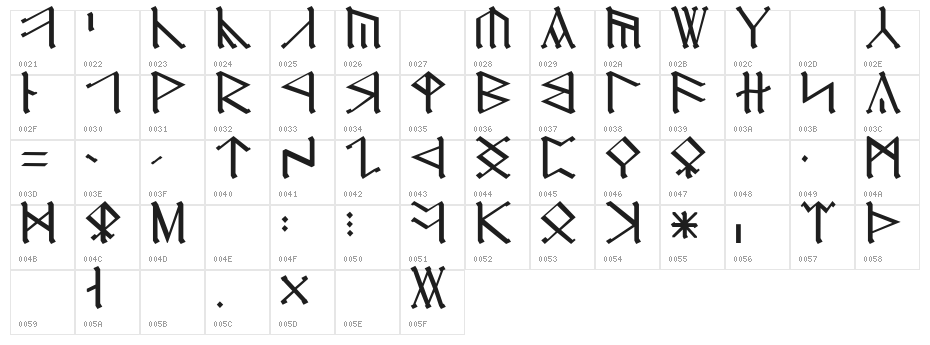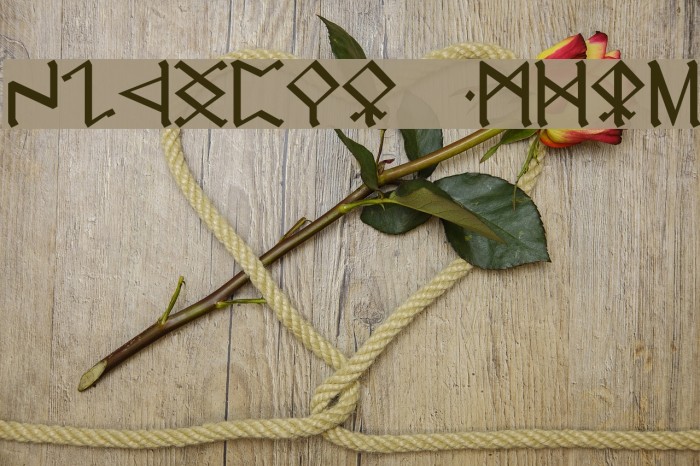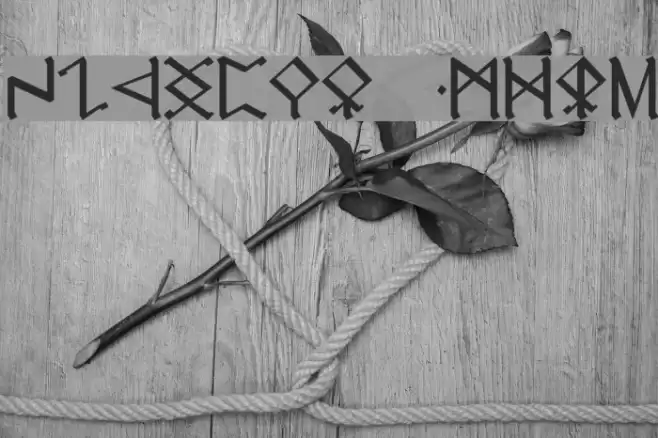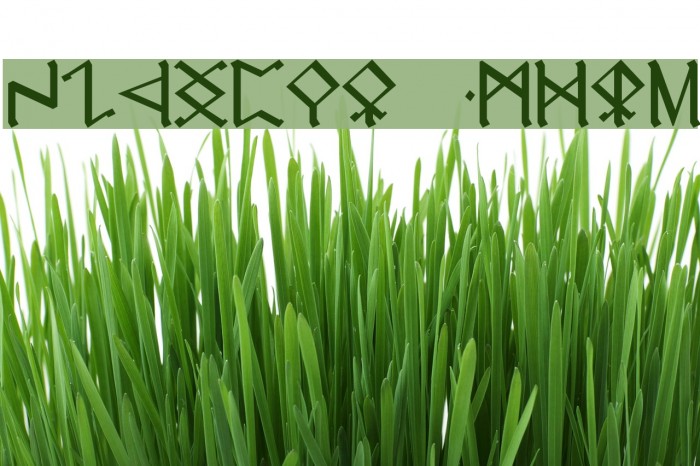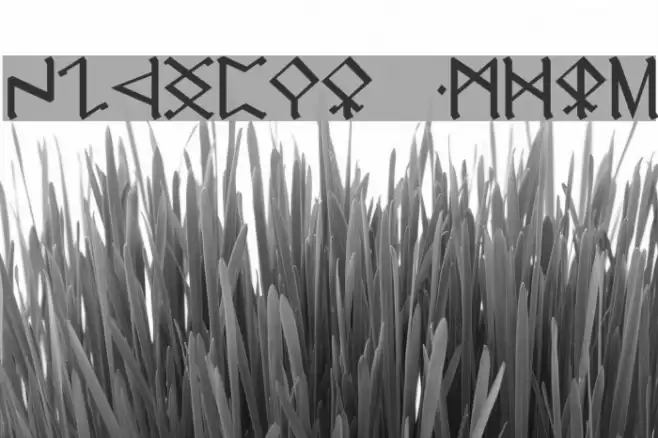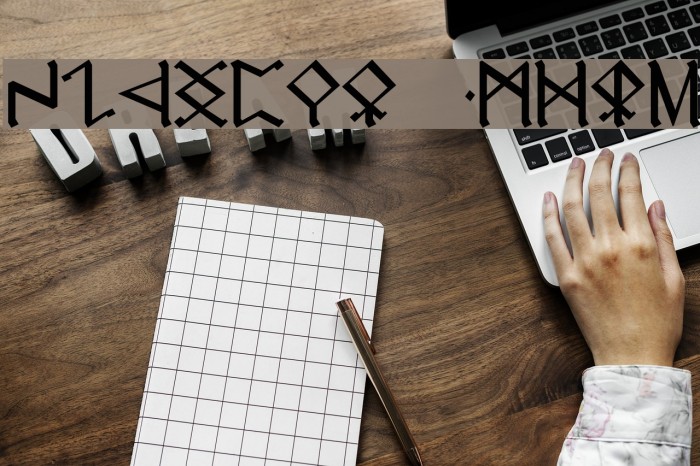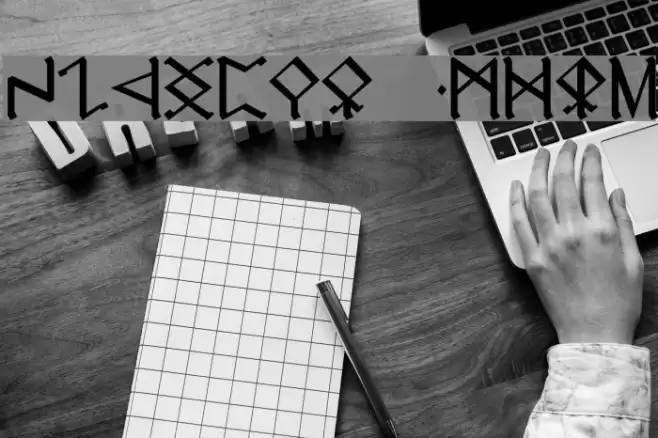
Cirth Erebor Caps Font
Cirth Erebor Caps Description
This font is a decorative script inspired by ancient runic alphabets, featuring angular and geometric shapes. Each character is crafted with sharp lines and distinct angles, giving it a mystical and archaic appearance. The font is highly stylized, with a unique aesthetic that evokes a sense of ancient history and fantasy. The characters are evenly spaced, maintaining a consistent visual rhythm across the text. This font is ideal for projects that require a touch of fantasy or historical intrigue, such as themed events, games, or literature. Its bold and striking design makes it stand out, capturing attention with its unique style.
| Use Case | Logos, Headlines, Themed projects |
| Proposed Projects | Fantasy-themed events, historical games, book covers, or movie posters. |